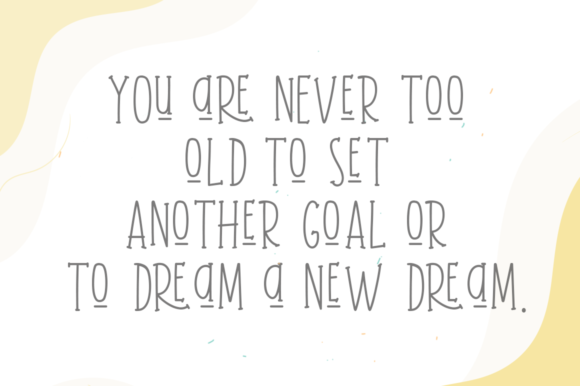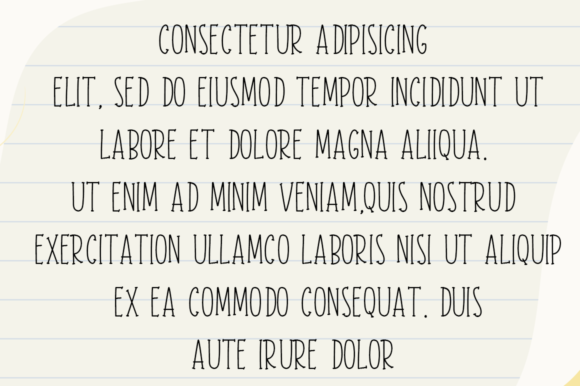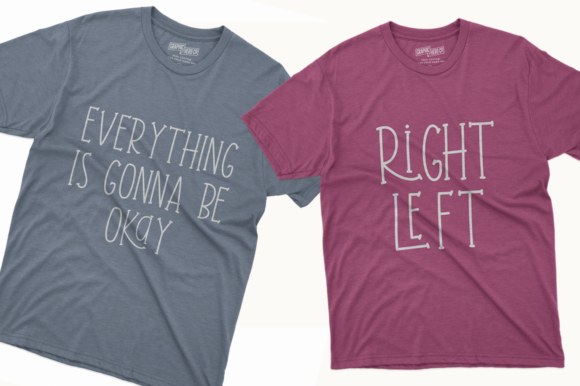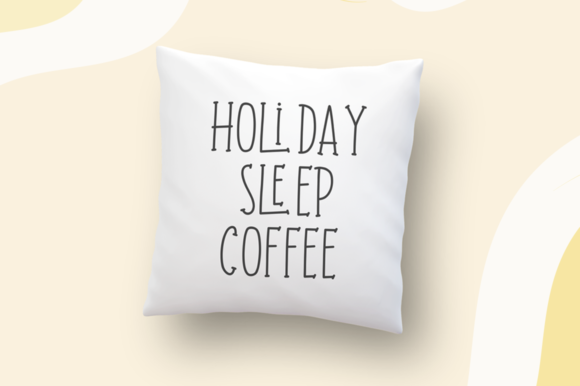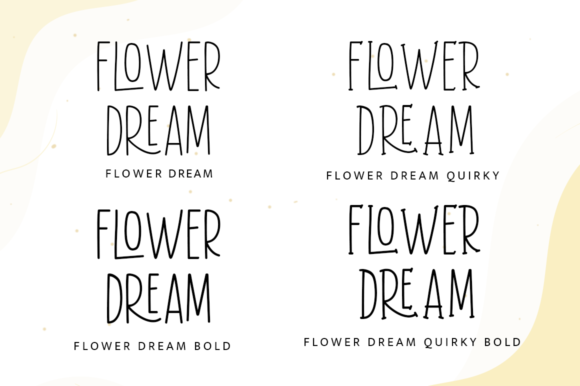
Introducing Flower Dream Font: The Sweet and Skinny Handwritten Font You Need
Are you a designer, crafter, or DIY enthusiast looking for a font that can add a touch of sweetness and elegance to your creations? Look no further than Flower Dream Font! This skinny and sweet handwritten font is designed to make your projects stand out with its simple yet strong visual effect. In this article, we’ll dive into the features and benefits of Flower Dream Font, and explore how it can elevate your designs to the next level.
What is Flower Dream Font?
Flower Dream Font is a beautiful, handwritten font that exudes a sense of whimsy and charm. Its skinny and delicate strokes make it perfect for adding a touch of femininity and sweetness to your designs. The font’s simplicity is also its strength, as it can be used to create a wide range of projects, from elegant wedding invitations to playful DIY crafts.
Key Features of Flower Dream Font
- Skinny and sweet handwritten font: Flower Dream Font features delicate strokes that give it a light and airy feel.
- Simple yet strong visual effect: The font’s simplicity makes it easy to read and understand, while its unique style adds a touch of elegance to your designs.
- Versatile: Flower Dream Font can be used for a wide range of projects, including wedding invitations, DIY crafts, social media graphics, and more.
- Elegant and whimsical: The font’s handwritten style gives it a playful and whimsical feel, making it perfect for projects that require a touch of personality.
Benefits of Using Flower Dream Font
So why should you choose Flower Dream Font for your next project? Here are just a few benefits of using this beautiful font:
- Adds a touch of elegance: Flower Dream Font can instantly elevate your designs and add a touch of sophistication.
- Easy to read: The font’s simple and clear style makes it easy to read, even at small sizes.
- Versatile: Flower Dream Font can be used for a wide range of projects, from formal to informal.
- Unique: The font’s handmade style gives it a unique and distinctive look that sets it apart from more traditional fonts.
How to Use Flower Dream Font
Using Flower Dream Font is easy! Here are a few tips for incorporating it into your next project:
- Pair it with bold fonts: Flower Dream Font pairs well with bold fonts, which can help to create a striking contrast.
- Use it for headings: The font’s elegant style makes it perfect for headings and titles.
- Add it to your branding: Flower Dream Font can be used to add a touch of personality to your brand’s visual identity.
Who is Flower Dream Font for?
Flower Dream Font is perfect for designers, crafters, and DIY enthusiasts who want to add a touch of sweetness and elegance to their creations. It’s also great for:
- Wedding planners: Use Flower Dream Font to create beautiful wedding invitations, programs, and decorations.
- Crafters: Add a touch of whimsy to your DIY crafts, such as cards, gift tags, and scrapbook pages.
- Social media enthusiasts: Use Flower Dream Font to create eye-catching social media graphics and posts.
Flower Dream Font is a beautiful, skinny, and sweet handwritten font that can add a touch of elegance and whimsy to your designs. With its simple yet strong visual effect, this font is perfect for a wide range of projects, from wedding invitations to DIY crafts. Whether you’re a designer, crafter, or DIY enthusiast, Flower Dream Font is a great choice for anyone looking to add a touch of personality to their creations.